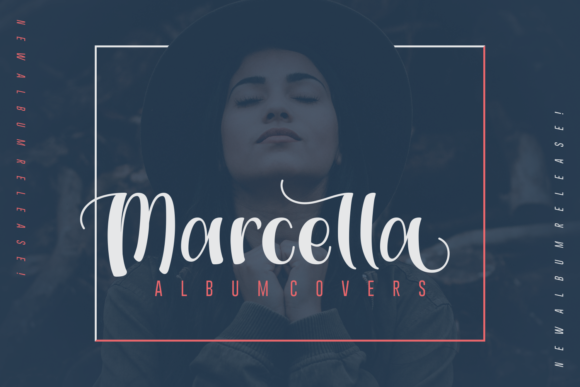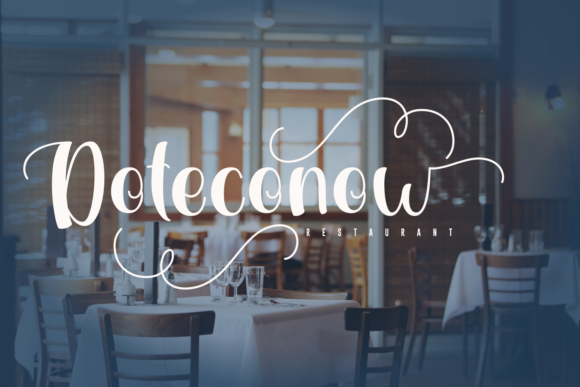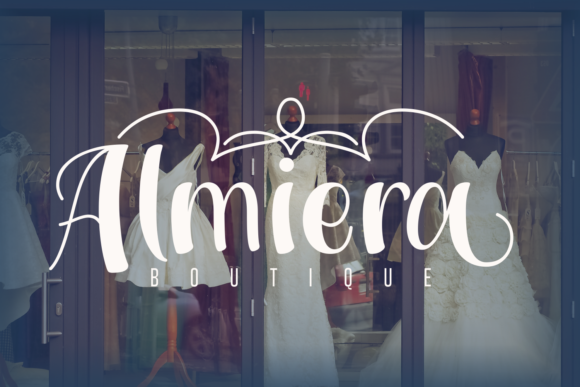
Introduction to Seshila Font
The Seshila is an amazing script font.
It has a bold style and includes beautiful swashes to add to your designs .
Key Features of Seshila Font